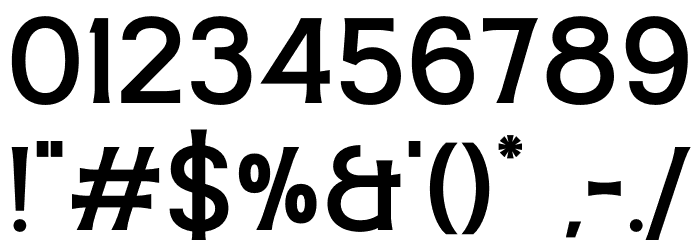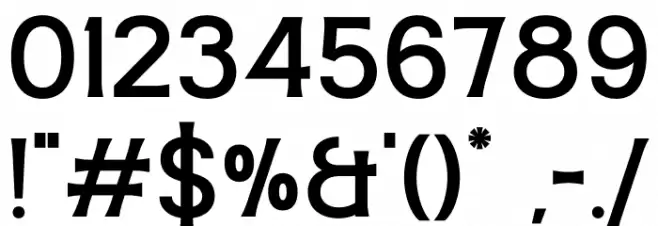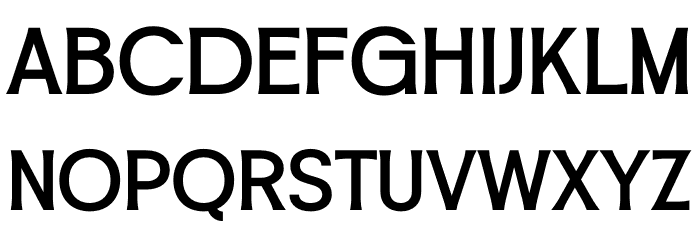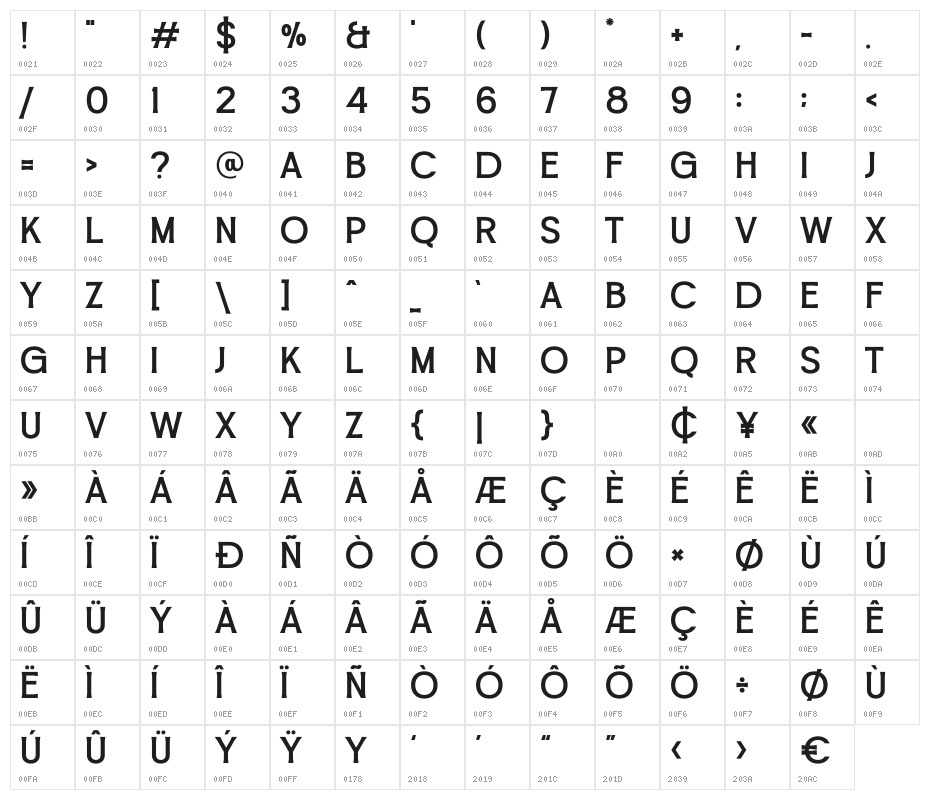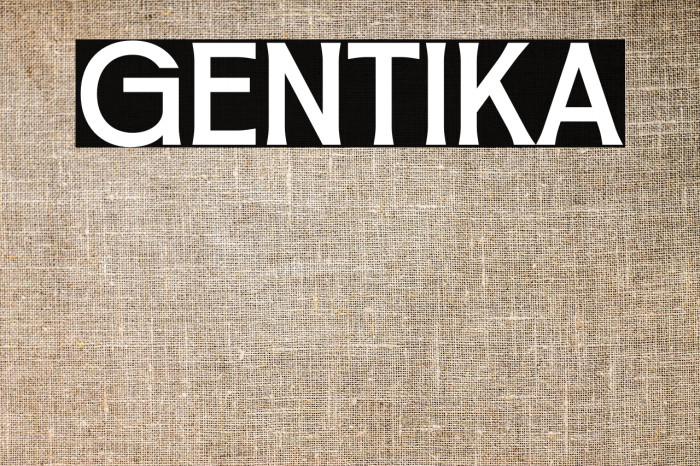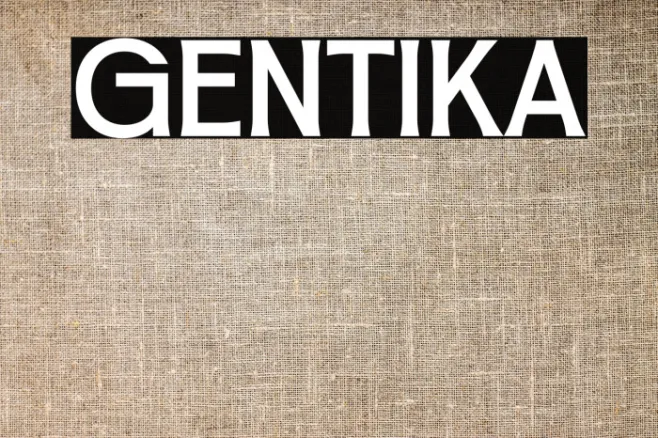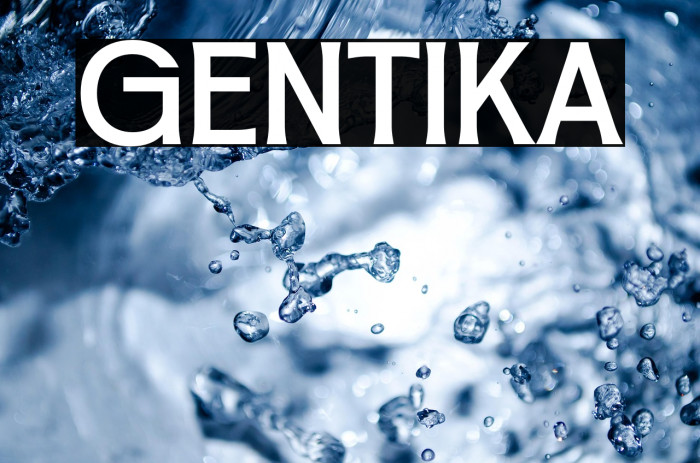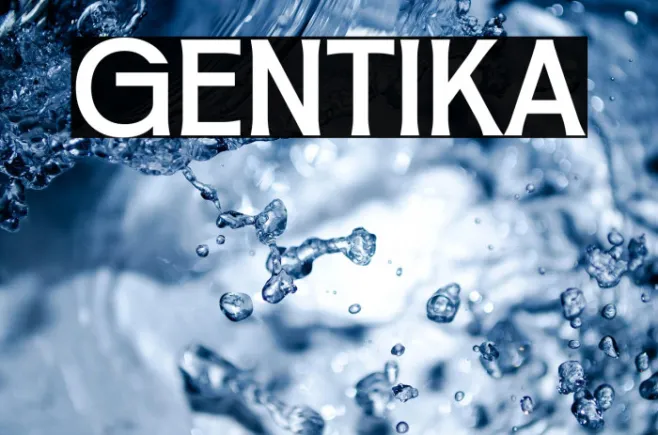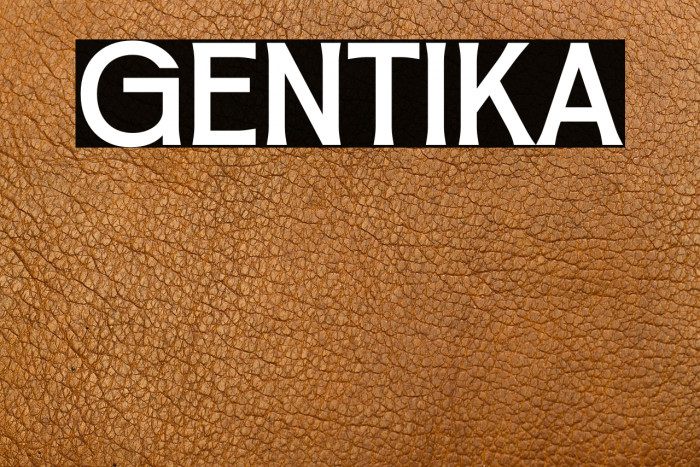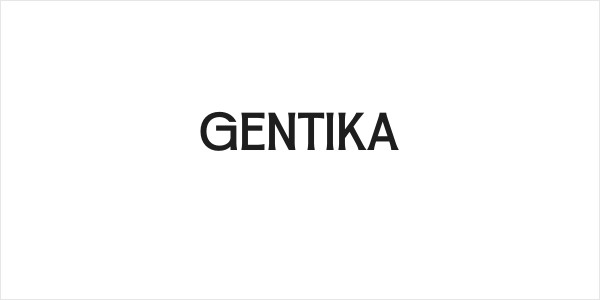
Gentika Font
Gentika Description
This font features a clean and modern sans-serif design with a balanced and uniform appearance. The uppercase and lowercase letters are well-proportioned, with a slight geometric influence that adds to its contemporary feel. The numerals are clear and legible, making them suitable for various applications. Special characters are included, maintaining the font's cohesive style. The overall design is versatile, making it suitable for both digital and print media.